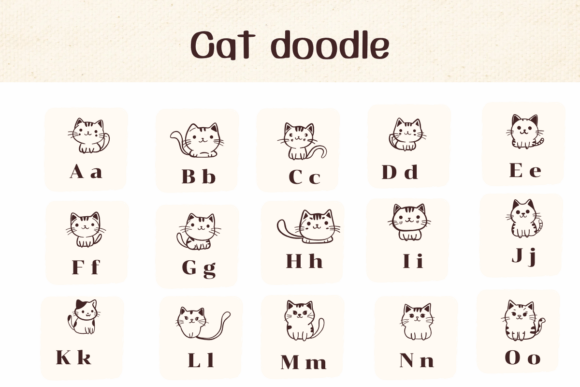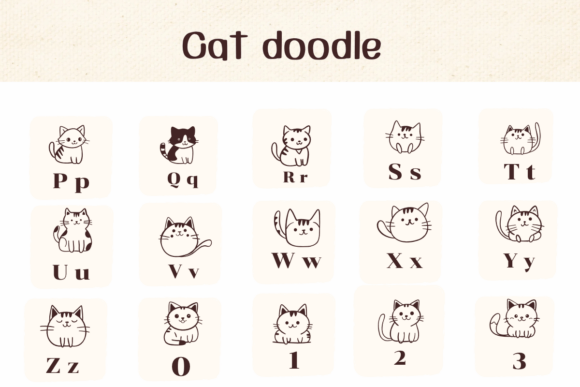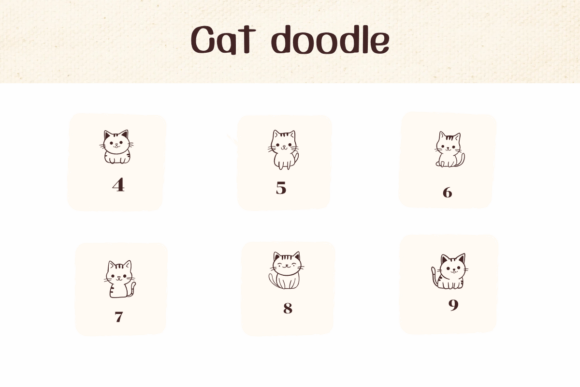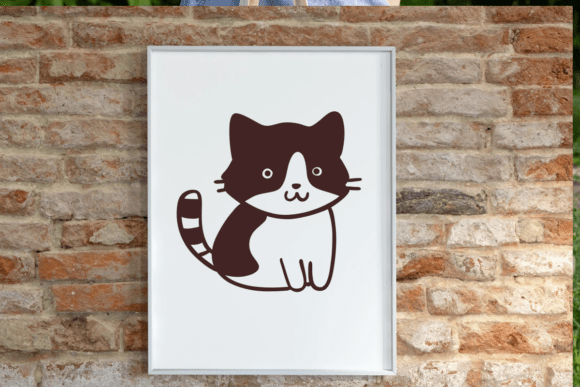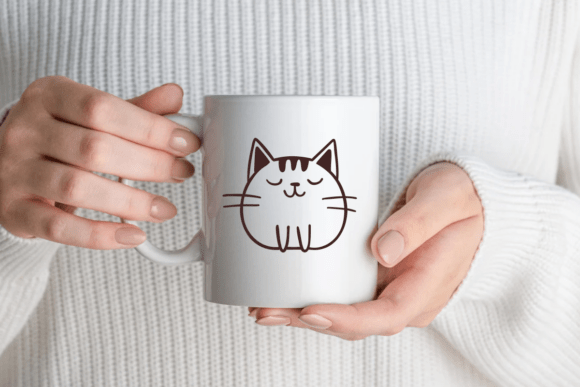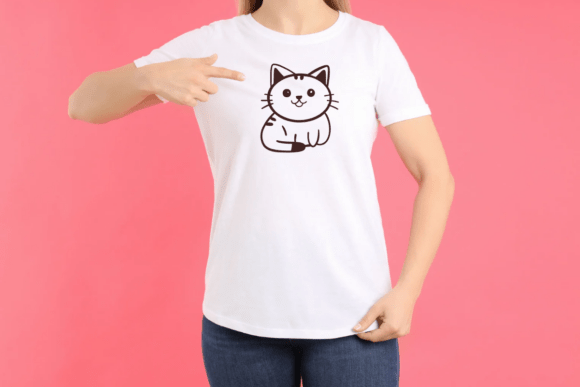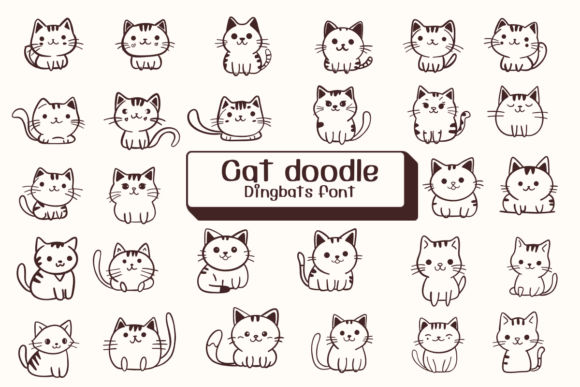
Introducing Cat Doodle Font: The Purrfect Addition to Your Creative Projects
Are you a designer, crafter, or DIY enthusiast looking for a unique and playful font to add a touch of whimsy to your projects? Look no further than Cat Doodle Font, a delightful dingbats font with a feline theme that’s sure to capture the hearts of cat lovers and crafty enthusiasts alike.
What is Cat Doodle Font?
Cat Doodle Font is a specially designed dingbats font that features an adorable collection of cat-themed illustrations, including cute cat faces, paws, and other feline-inspired icons. This charming font is perfect for adding a personal touch to your creative projects, from wedding invitations and DIY crafts to decorations, logos, and more.
With Cat Doodle Font, the possibilities are endless! Imagine being able to add a playful cat-themed twist to your:
- Wedding invitations: Create custom wedding invites that feature adorable cat illustrations, making your special day even more memorable.
- DIY crafts: Add a personal touch to your handmade crafts, such as cat-themed cards, gift tags, and decorations.
- Logos and branding: Use Cat Doodle Font to create a unique and recognizable brand identity that showcases your love for cats.
- Decorations: Design custom cat-themed decorations, such as garlands, banners, and wall art, to add a touch of whimsy to your home or office.
Why Choose Cat Doodle Font?
So, what sets Cat Doodle Font apart from other fonts? Here are just a few reasons why designers and crafters love this font:
- Unique and playful design: Cat Doodle Font features a one-of-a-kind design that’s sure to stand out in any project.
- High-quality illustrations: The cat illustrations in this font are meticulously designed to ensure they look great in any project.
- Versatile: Cat Doodle Font can be used for a wide range of projects, from digital designs to print materials.
Tips for Using Cat Doodle Font
To get the most out of Cat Doodle Font, here are a few tips to keep in mind:
- Experiment with different sizes and colors: Play around with different font sizes and colors to find the perfect combination for your project.
- Mix and match illustrations: Combine different cat illustrations to create a unique and eye-catching design.
- Use it with other fonts: Pair Cat Doodle Font with other fonts to create a visually interesting and dynamic design.
Cat Doodle Font is a delightful and versatile font that’s perfect for designers, crafters, and DIY enthusiasts who love cats. With its unique and playful design, endless creative possibilities, and ease of use, this font is sure to become a favorite in your creative toolkit. So why wait? Download Cat Doodle Font today and start adding a touch of feline whimsy to your projects!